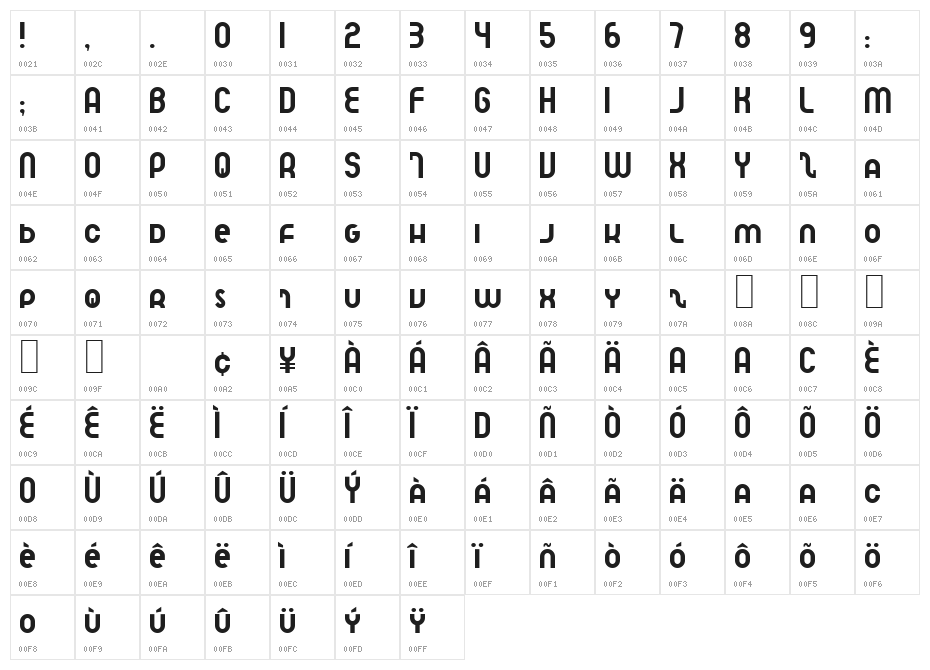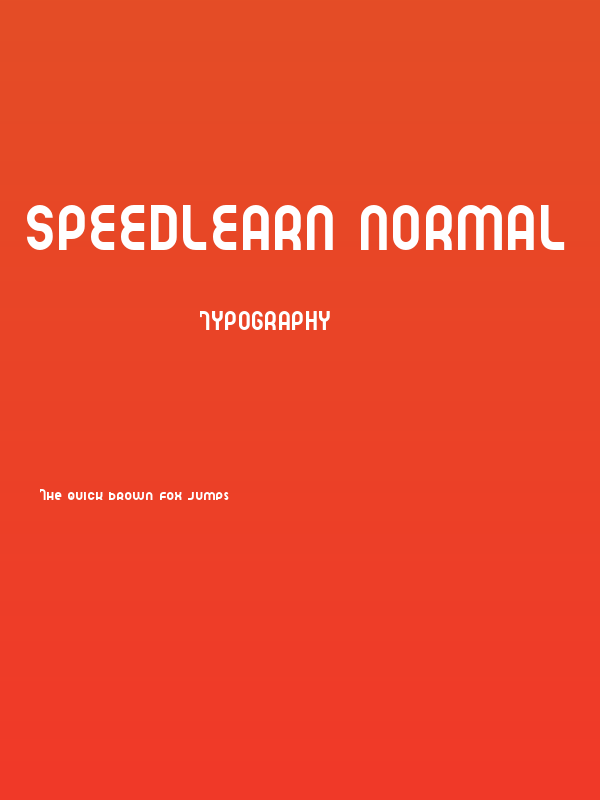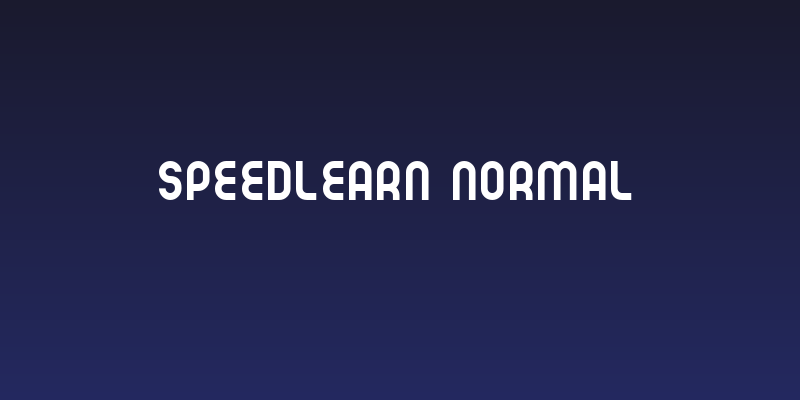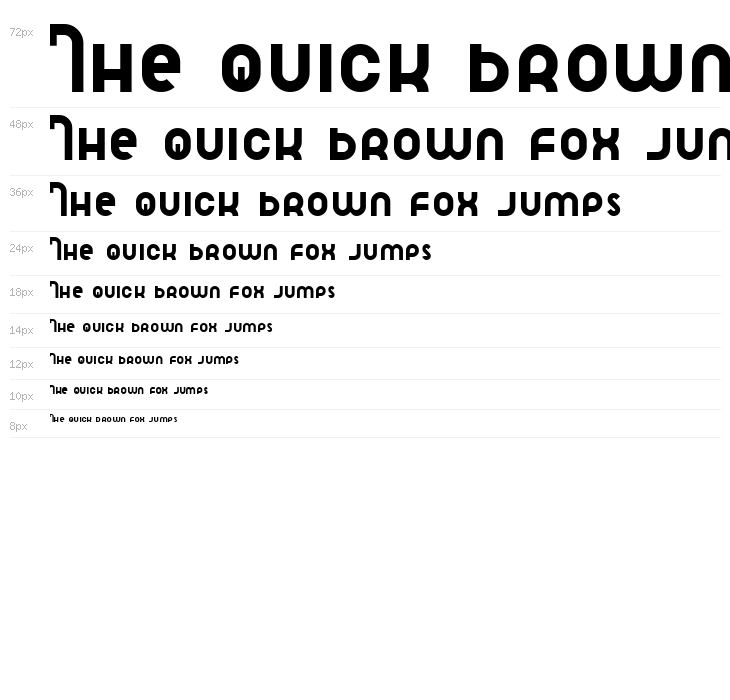
Speedlearn Normal Font
Speedlearn Normal Description
This font features a bold and modern design with a geometric structure. The characters are uniform in width, creating a balanced and cohesive appearance. The uppercase and lowercase letters maintain a consistent style, with rounded edges and a clean finish. The numerals are distinct and easily readable, complementing the overall design. Special characters are included, maintaining the same bold and structured aesthetic. This font is suitable for digital and print media, offering a contemporary look that is both functional and stylish.
| Use Case | Headlines, Logos, Digital Media |
| Proposed Projects | Ideal for branding, advertising, digital media, and modern print design projects. |